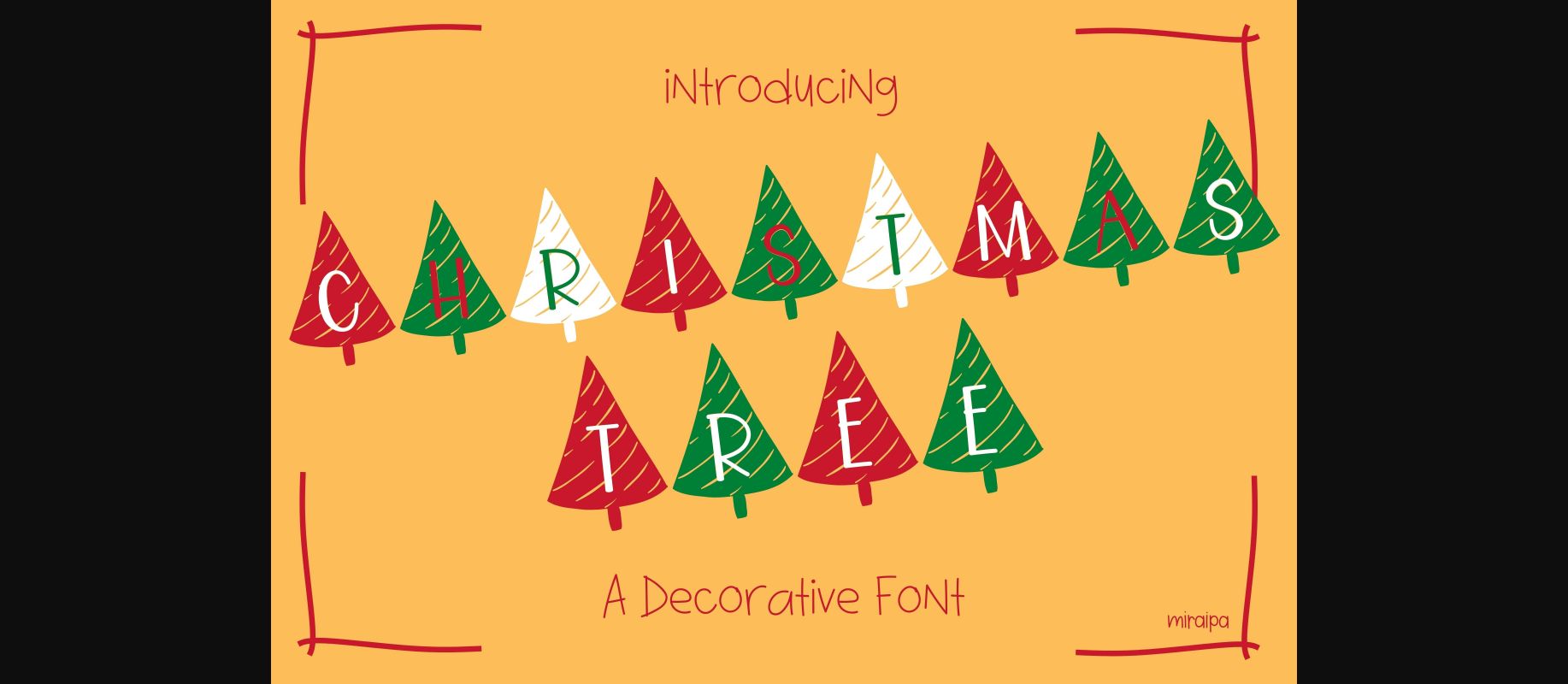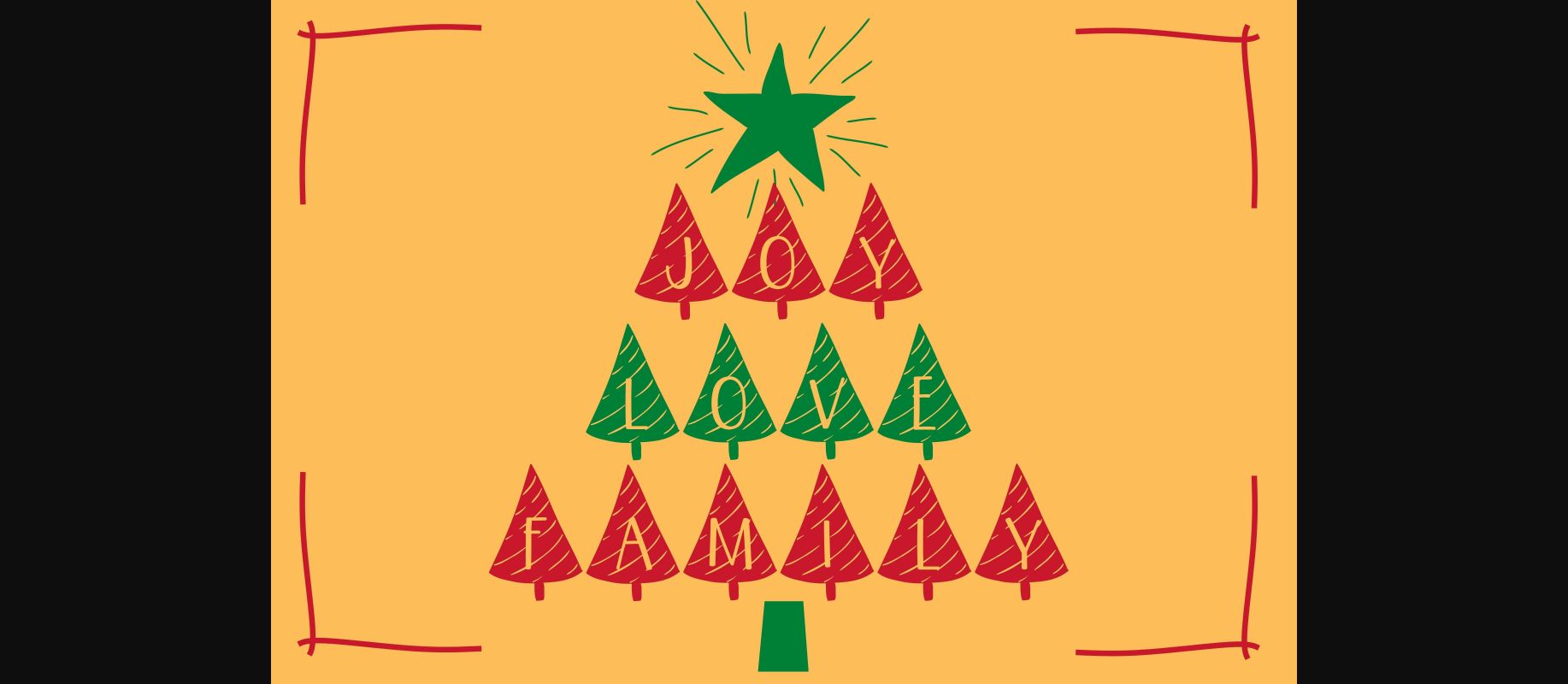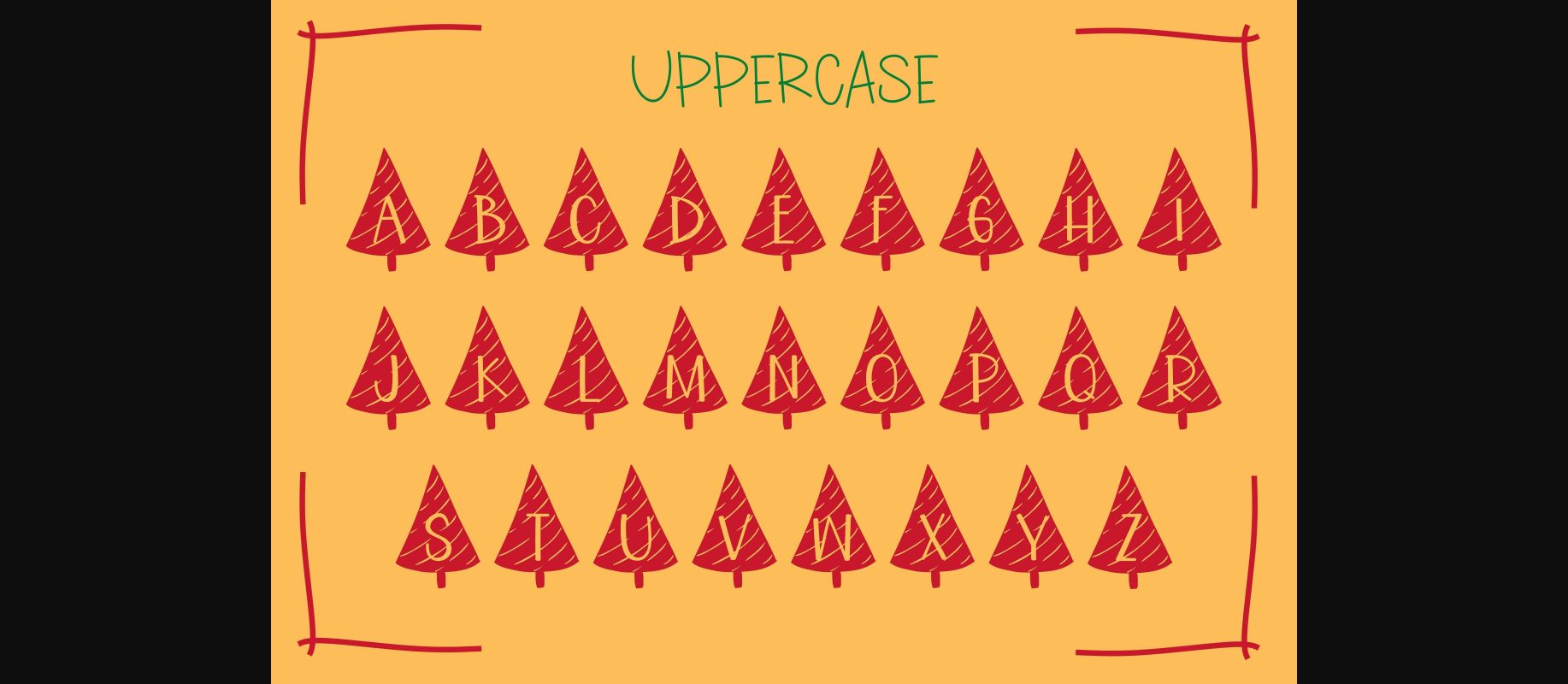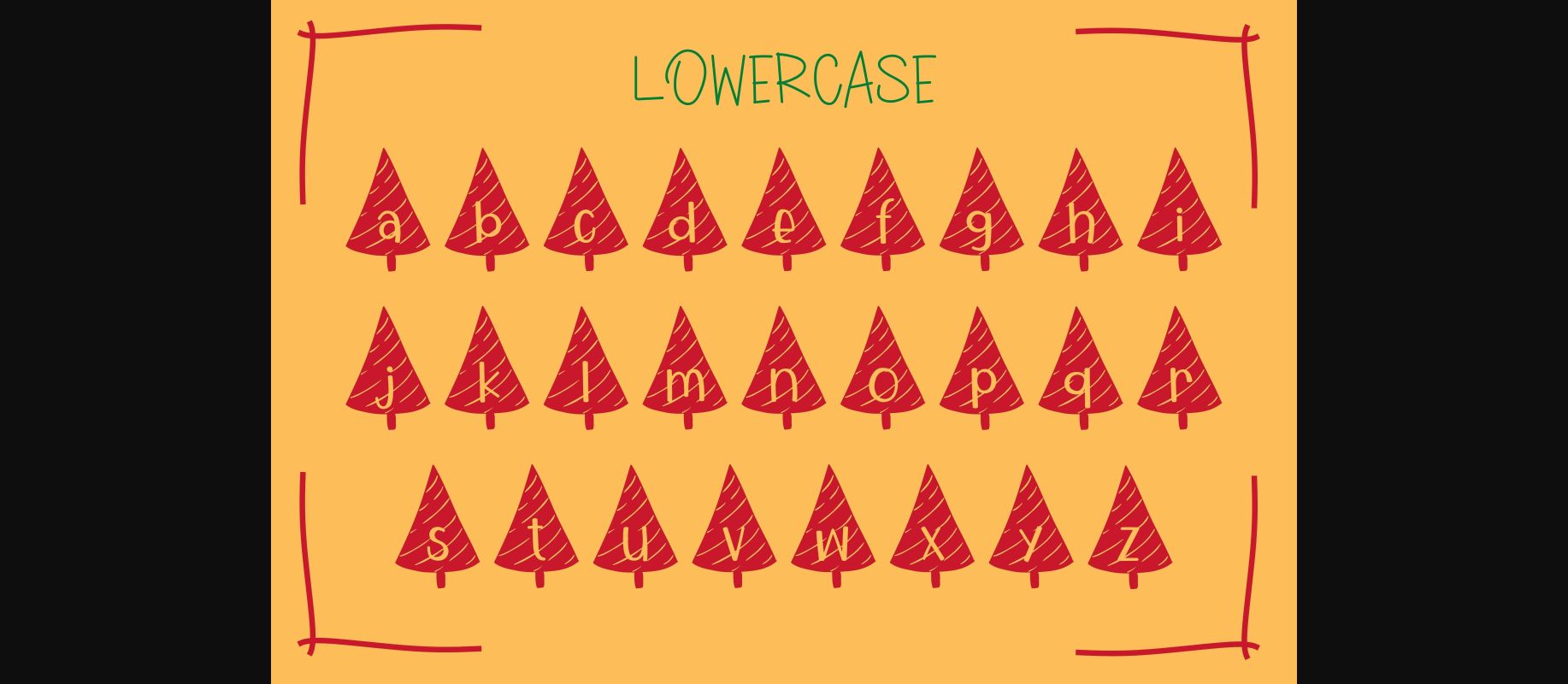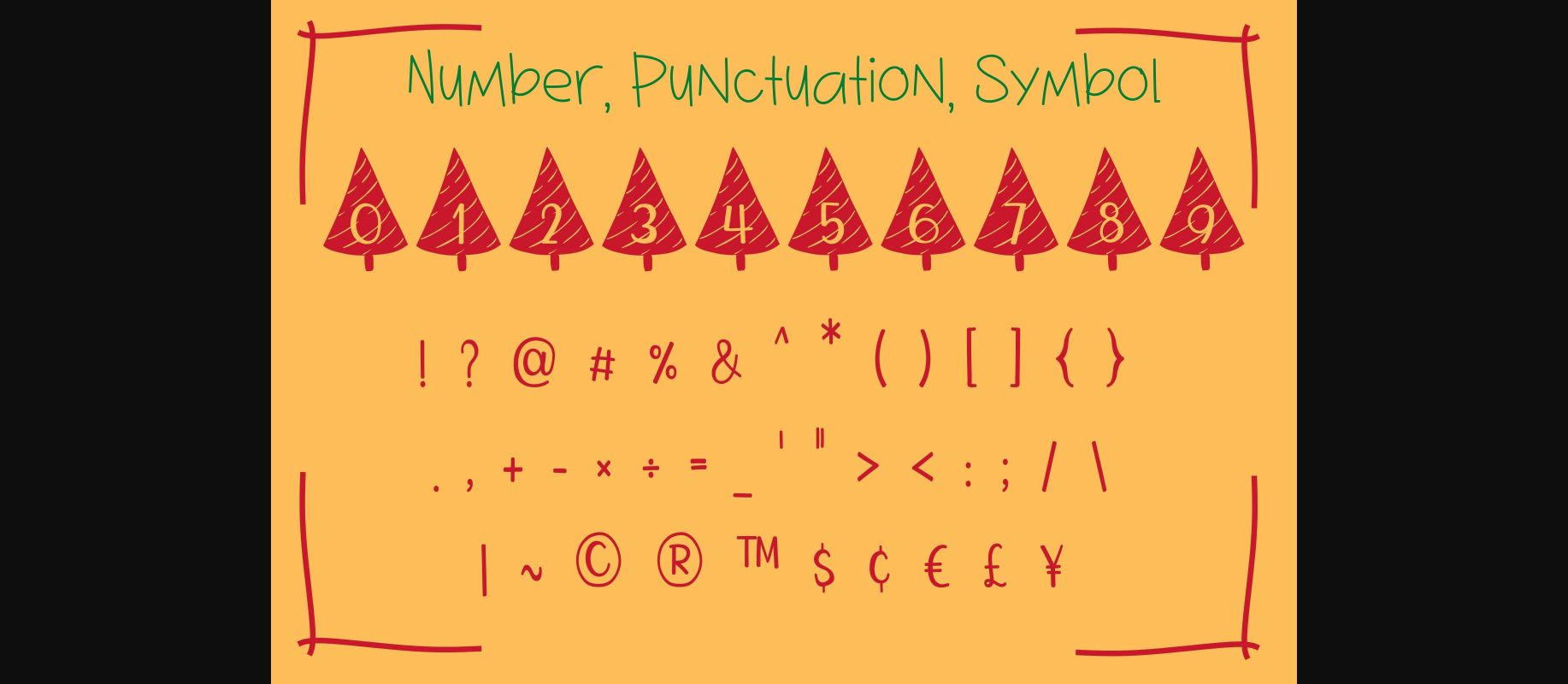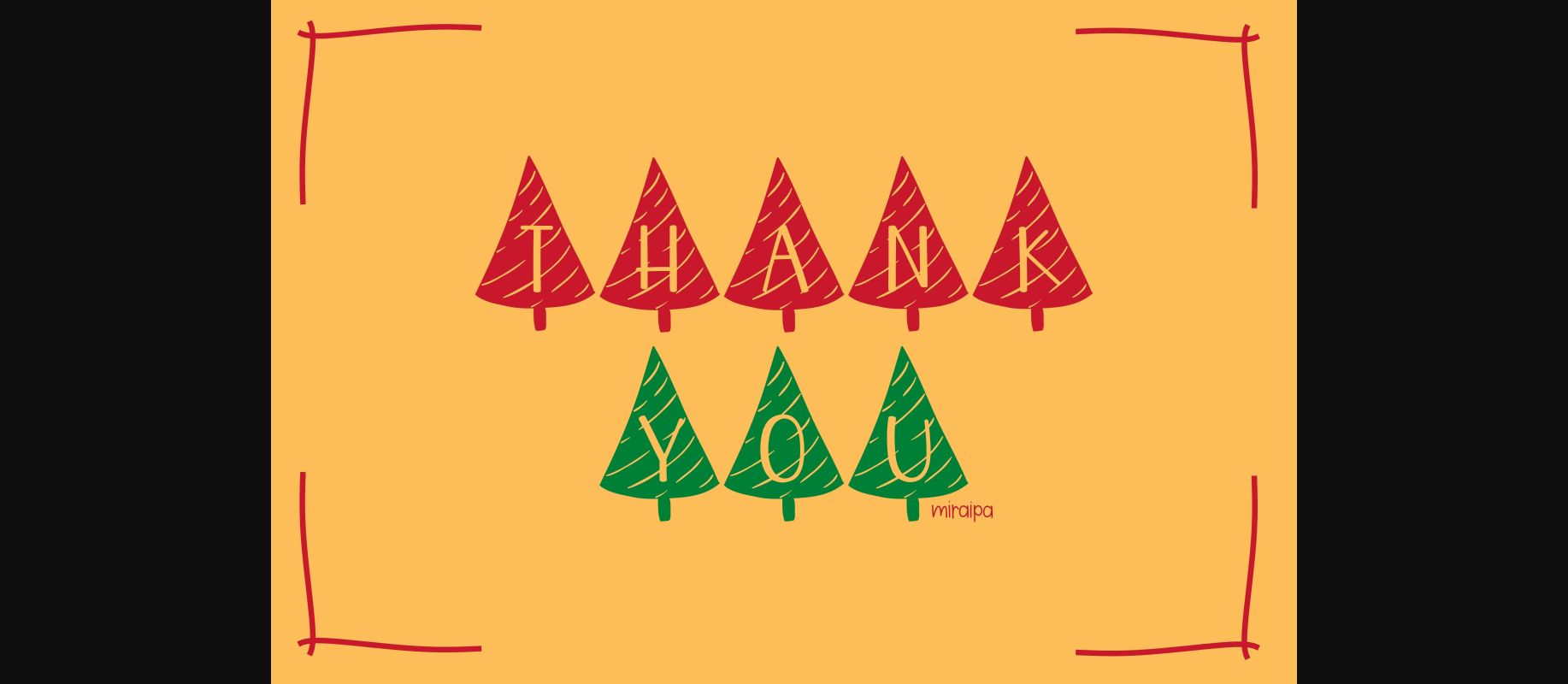
Christmas Tree Font
About Christmas Tree Font
Christmas Tree is a decorative font designed with a cute festival season feel. You can adapt this typeface to your awesome projects such as party decorations, party invitations, posters, blogs, clothing, greeting cards, social media posts, or anything that needs a friendly touch. Add it now to your fonts library, and it will bring any of your DIY projects to life.